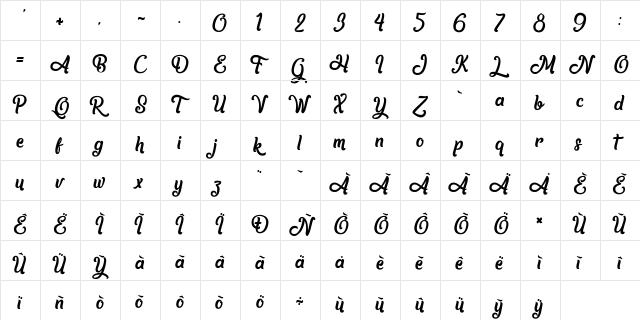
Another day in Paradise Regular
| Foundry | Octotype |
| Designer | Octotype |
Design Context for Another day in Paradise Typeface
Another day in Paradise takes a measured approach to typography — its balanced proportions and neutral character make it a reliable workhorse for both digital and print work.